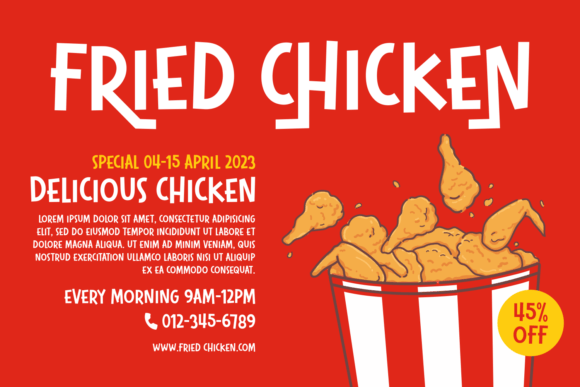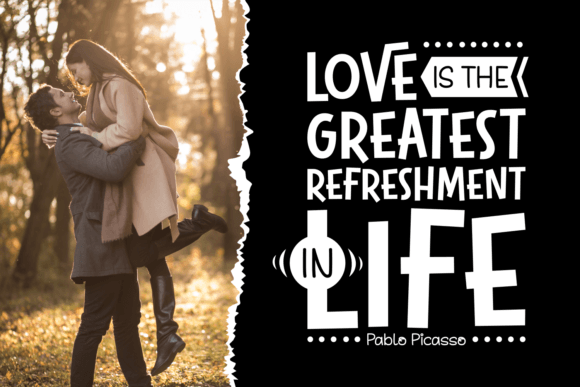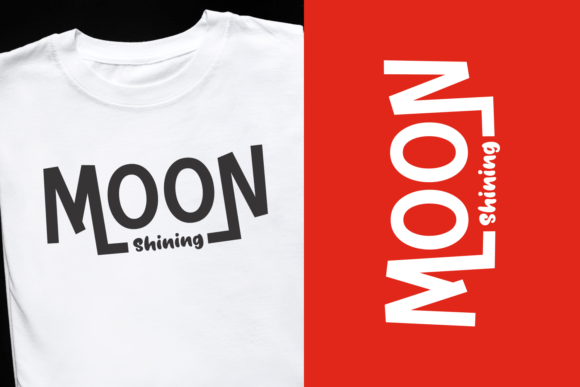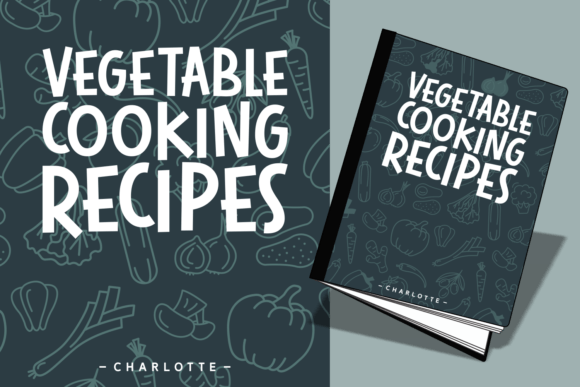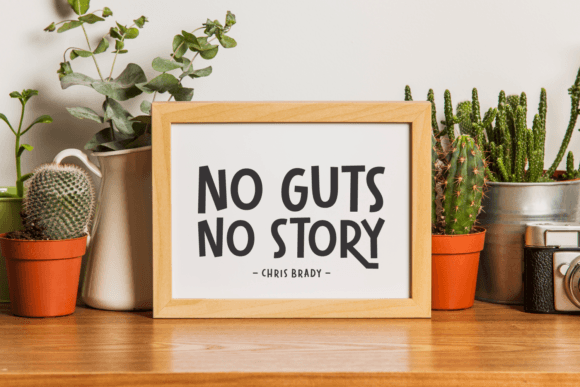
Introduction to Hope for the Best Font
Have you ever found yourself pouring your heart into a creative project, only to be stumped by the perfect font? It’s a frustrating moment that can make even the most talented designers feel like they’re missing a crucial piece of the puzzle. But what if I told you that there’s a solution that can elevate your design to the next level? Enter Hope for the Best Font, a charming display font that’s about to become your new go-to design resource.
With its bold and fluid strokes, Hope for the Best Font is the perfect addition to any high-quality design. Whether you’re working on a logo, branding, or a creative project that requires a touch of elegance, this font is sure to deliver. Plus, with a transparent background, you can easily add your own design elements to create a truly unique look.
Key Features of Hope for the Best Font
- High-quality design resource suitable for creative projects, including logos, graphics, and advertisements.
- Unique, modern design with a transparent background, allowing for seamless integration with various backgrounds.
- Perfect for designers looking for a unique and stylish font to elevate their creative project, from business cards to posters.
Honest Review: Hope for the Best Font
I recently came across the Hope for the Best Font, and I must say it’s been a game-changer for my creative projects. As a designer, I’m always on the lookout for high-quality design resources that can elevate my work. This font definitely delivers.
- ✨ Clean and elegant design: The Hope for the Best Font features a sleek, modern design that’s perfect for a variety of creative projects.
- ✨ Transparent background: This font is designed with a transparent background, making it easy to use on any background or image.
While the Hope for the Best Font is an excellent addition to any designer’s toolkit, there are a few limitations to keep in mind.
- ⚠️ Limited font sizes: The font only comes in a few standard sizes, which may limit its versatility for certain projects.
- ⚠️ No bold or italic styles: This font is primarily designed for regular text, so you may need to use a different font for bold or italic text.
Overall, I’m thoroughly impressed with the Hope for the Best Font. Its high-quality design and transparent background make it an excellent choice for a wide range of creative projects. While it has a few limitations, it’s an excellent free download that’s definitely worth checking out.
The Hope for the Best Font is a high-quality, versatile design resource ideal for various creative projects. Its unique features include a transparent background, making it perfect for overlaying text on images or using as a standalone element.
The Hope for the Best Font is suitable for a wide range of creative projects, including brochures, flyers, social media graphics, and presentations. Its versatility and high-quality design make it an excellent choice for designers of all levels.